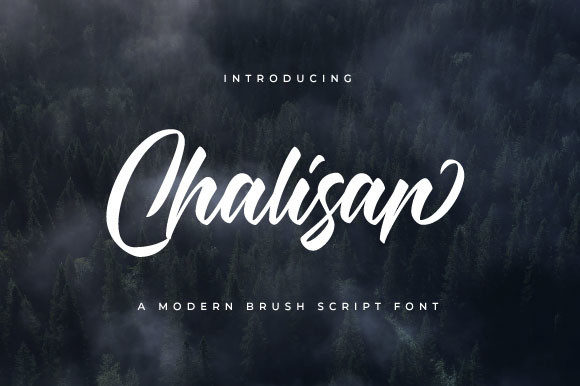
Unleash the Enchanting Allure of Chalisan Font: A Timeless Masterpiece for Your Creative Endeavors
Embark on a typographic journey like no other with Chalisan Font, a captivating handwritten font that blends timeless elegance with contemporary charm. Crafted with meticulous attention to detail, Chalisan exudes an air of sophistication that is sure to leave a lasting impression. Its graceful curves and playful flourishes evoke a sense of artistry and creativity, making it the perfect choice for those seeking a font that speaks to their individuality and passion.
As a script font, Chalisan possesses an inherent elegance that sets it apart from the ordinary. Its delicate strokes and flowing lines lend a touch of sophistication to any design, whether it be a wedding invitation, a branding project, or a heartfelt letter. The font's versatility extends beyond its aesthetics, as it effortlessly adapts to a wide range of applications, from social media posts and marketing materials to logos and website designs.
Chalisan's versatility is further enhanced by its ability to harmonize seamlessly with a variety of design styles. Whether you prefer the classic charm of vintage aesthetics or the sleek minimalism of modern design, Chalisan seamlessly blends in, adding a touch of timeless beauty and effortless grace. Its ability to adapt to different styles makes it a valuable asset for designers seeking a font that can effortlessly elevate their creative vision.
At the heart of Chalisan's charm lies its ability to evoke emotions and convey messages with remarkable clarity. Its graceful lines and playful flourishes create a sense of warmth and approachability, making it an ideal choice for projects that aim to connect with audiences on a personal level. Whether you're designing a heartwarming invitation or crafting a compelling brand identity, Chalisan's emotional resonance will leave a lasting impression on your audience.